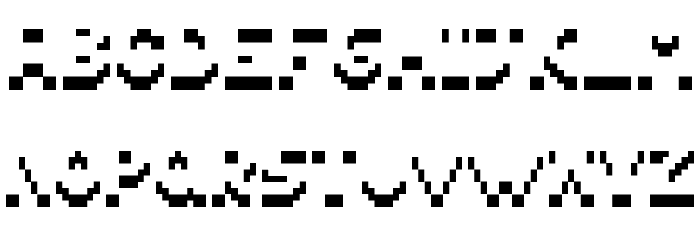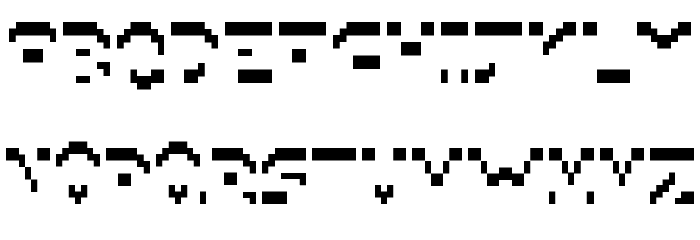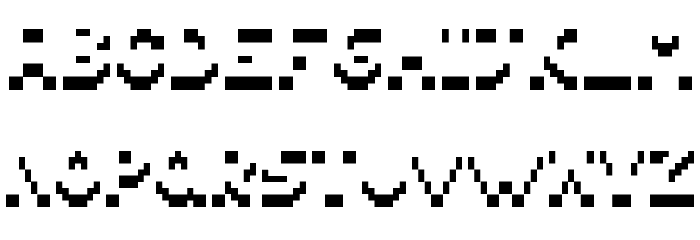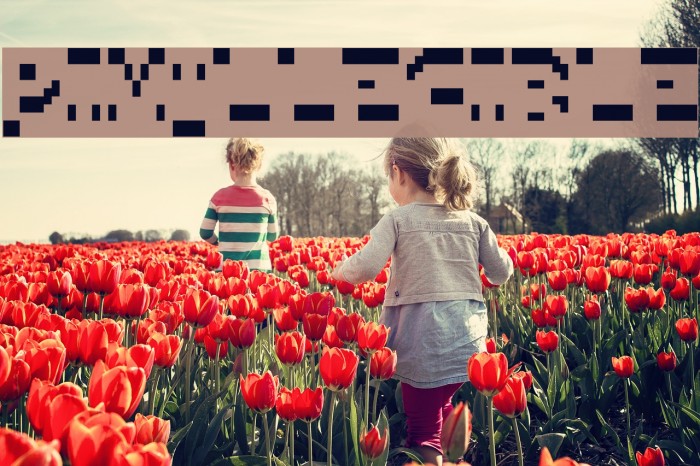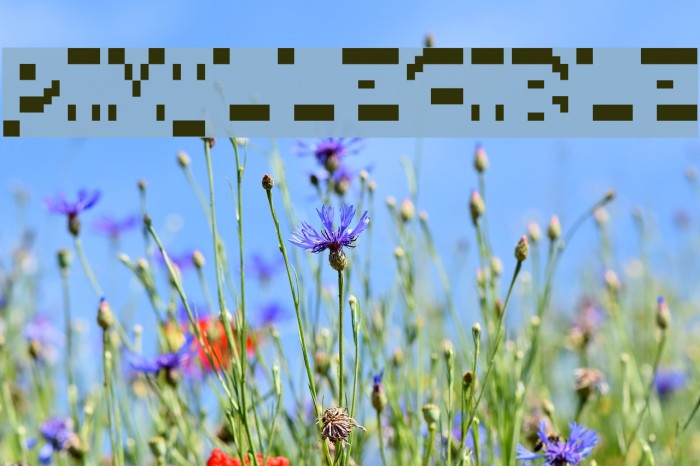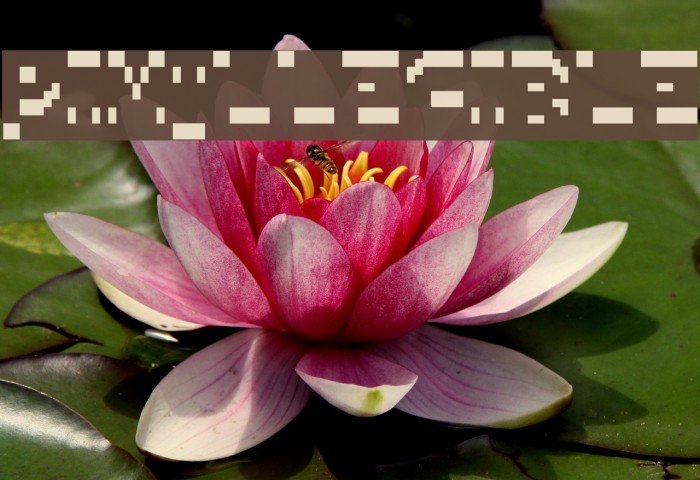
PixIllegible Font
This font features a pixelated, blocky design reminiscent of early digital displays or retro video games. Each character is constructed from a grid of square pixels, giving it a distinctly digital and geometric appearance. The uniformity in pixel size across all characters creates a cohesive and consistent look. Despite its simplicity, the font maintains legibility and a certain charm that evokes nostalgia for classic arcade games. The characters are evenly spaced, and the overall style is minimalist yet effective for conveying a retro aesthetic.
A pixelated, blocky font with a retro digital aesthetic.
- Proposed Projects: Ideal for retro video game designs, digital art projects, or any creative work that seeks to evoke nostalgia for early computing and gaming eras.
- Overall Style: Retro, Digital
- Use Case: Logos, Headlines, Digital Art